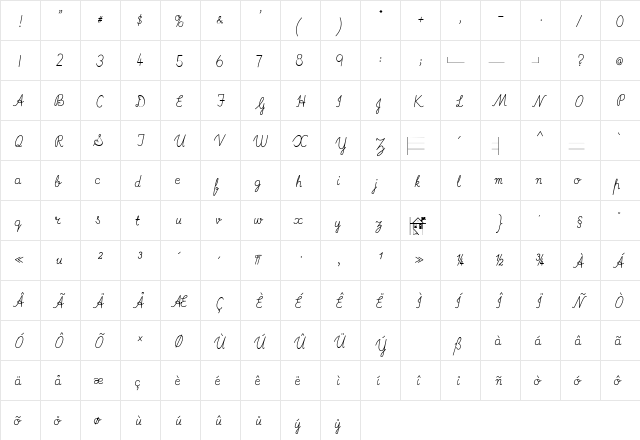
Imrans School Italic
| Foundry | Peter Wiegel |
| Designer | Peter Wiegel |
Design Context for Imrans School Typeface
Imrans School is a composed and adaptable typeface that performs quietly and consistently across a wide range of design contexts. The dynamic lean of this cut emphasises speed and emphasis in any layout.